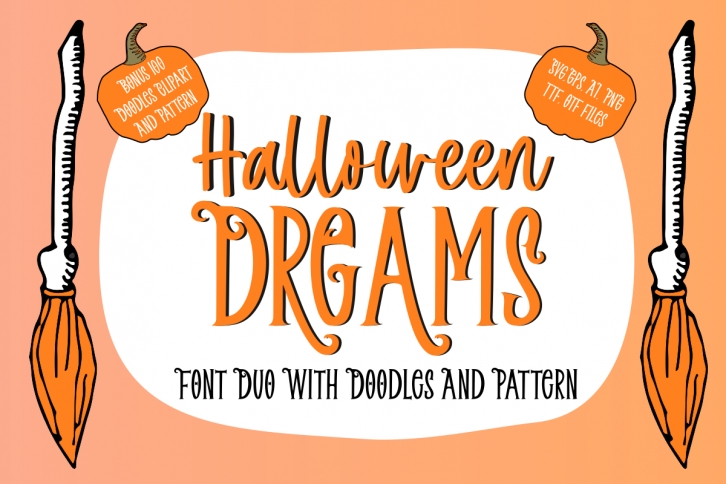
Halloween Dreams is a lovely trio font (display, script, dingbats). Together or apart, these fonts are ideal for adding a chic and cheery touch to your crafts. This font is PUA encoded which means you can access all glyphs and swashes with ease!